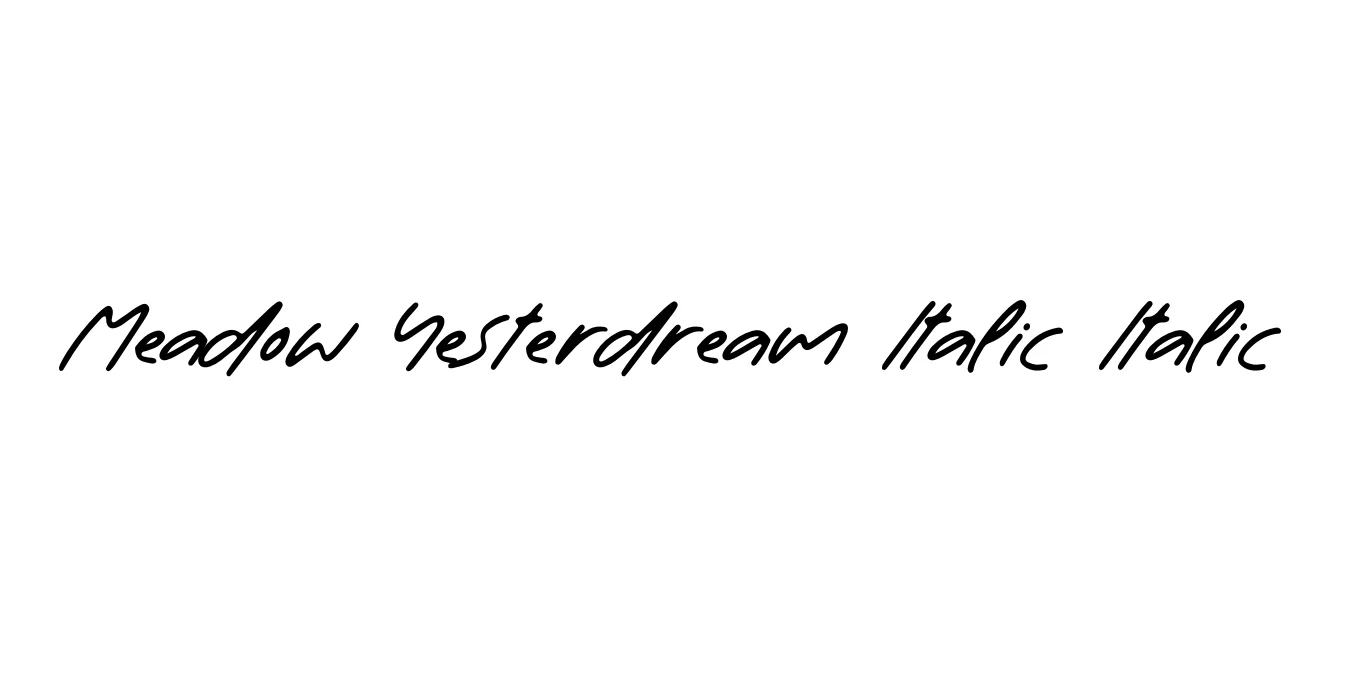
Meadow Yesterdream Italic Italic
Meadow Yesterdream Italic is a captivating script font that blends nostalgic charm with contemporary elegance. Designed to evoke the feeling of a sun-drenched meadow and whispered dreams, its fluid strokes and rhythmic slant make it ideal for high-end creative projects. The font features intricate connections and delicate terminal flourishes that provide a hand-lettered look, perfect for designers seeking a personal and artisanal touch in their typography.
The Italic variation emphasizes motion and grace, making it a standout choice for romantic themes and sophisticated branding. It incorporates a wide array of ligatures and alternative characters that allow for diverse typographic compositions. Whether used for digital media or high-quality print, Meadow Yesterdream Italic ensures a sense of timeless beauty and whimsical sophistication across all visual applications.
Meadow Yesterdream Italic Italic Best Uses
Perfect for invitations, RSVP cards, and place settings due to its romantic and soft flair.
Ideal for creating elegant logos and identity systems for fashion, boutique, or beauty brands.
Great for eye-catching quotes and Instagram story graphics that require a personal, handwritten touch.
Works beautifully as a header or pull-quote font in luxury lifestyle and bridal magazines.